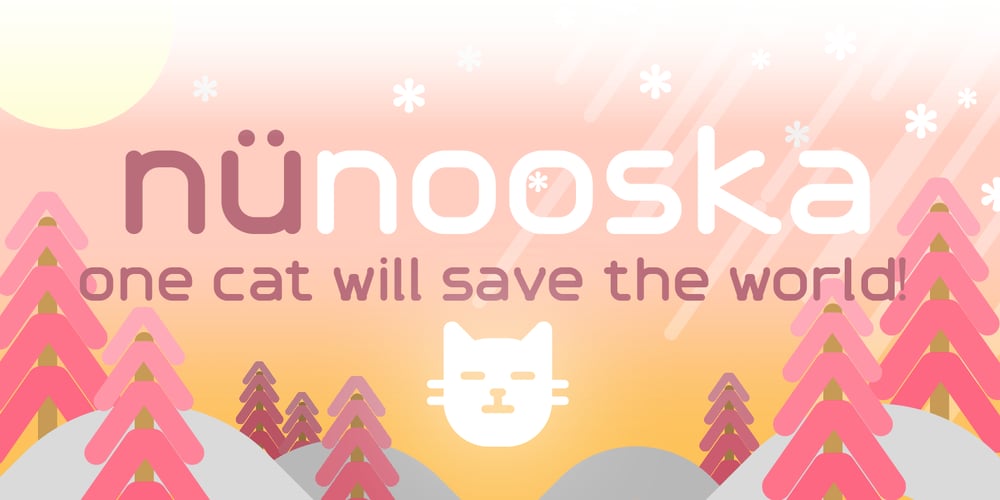
Nünooska
Nünooska font
Nünooska Font Family was designed by Luke William Turvey and published by Okaycat. Nünooska contains 1 styles and family package options. Nünooska is a sans serif type designed by Luke Turvey in 2014. The minimalist charm of Nünooska offers a soft unique style while remaining legible and clean. This rounded geometric sans serif is designed to look excellent for display or printed publication.